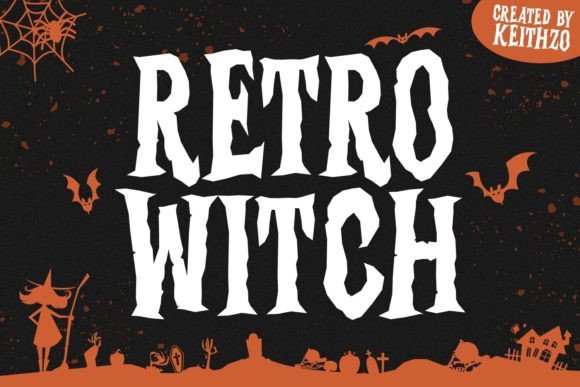
Behold, Retro Witch Font - a display font that conjures a world of captivating designs, meticulously crafted to be your go-to font for exceptional projects. Its enchanting aura will cast a spell on your audience, leaving them spellbound by your creativity.
With Retro Witch Font, you'll hold the key to unlocking a realm of endless possibilities. It's perfect for creating mesmerizing logos that will cast a spell on potential customers, leaving them captivated by your brand's charm. Unleash your inner sorceress and conjure stunning social media graphics that will ignite engagement and make your posts truly magical. From eye-catching posters that transport your audience to a fantastical realm to enchanting invitations that set the tone for extraordinary events, Retro Witch Font is your magic wand to turn ordinary designs into captivating experiences.
Dive into the realm of print, where Retro Witch Font will elevate your designs to new heights. Create designs that leap off the page, capturing the imagination with its bewitching charm. From captivating business cards that leave a lasting impression to mesmerizing posters that command attention, Retro Witch Font is the secret potion to make your print projects enchantingly unforgettable.